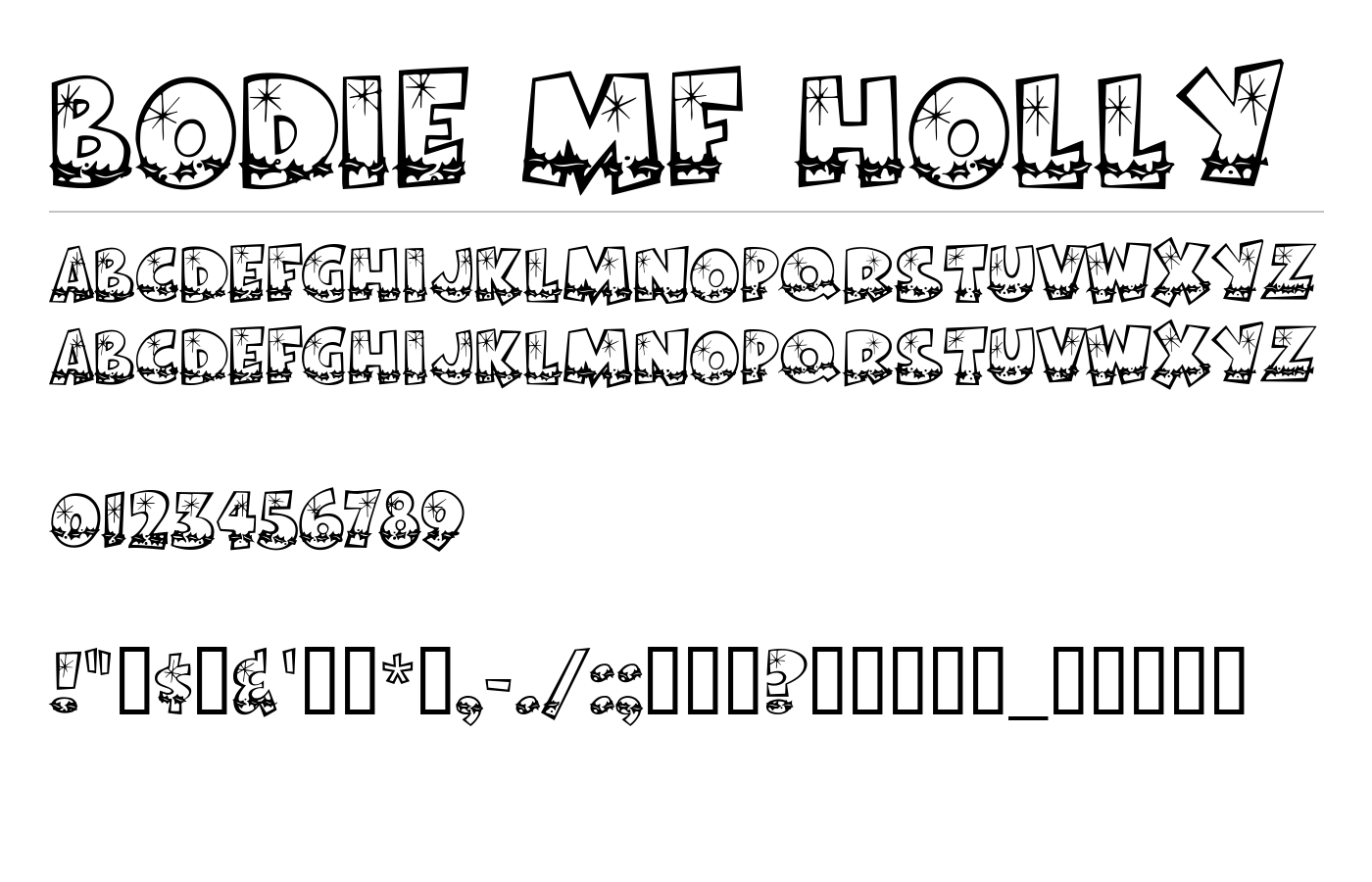
Bodie MF Holly is a playful and decorative display font featuring bold, chunky uppercase letters with a festive holly and sparkle theme integrated into each character. Its lively, whimsical style is perfect for holiday-themed designs, kids' party invitations, or any project looking to add a joyful, seasonal touch. This font works best for headlines, logos, and packaging where a fun and eye-catching appearance is desired.
Bodie MF Holly Font
About Bodie MF Holly Font